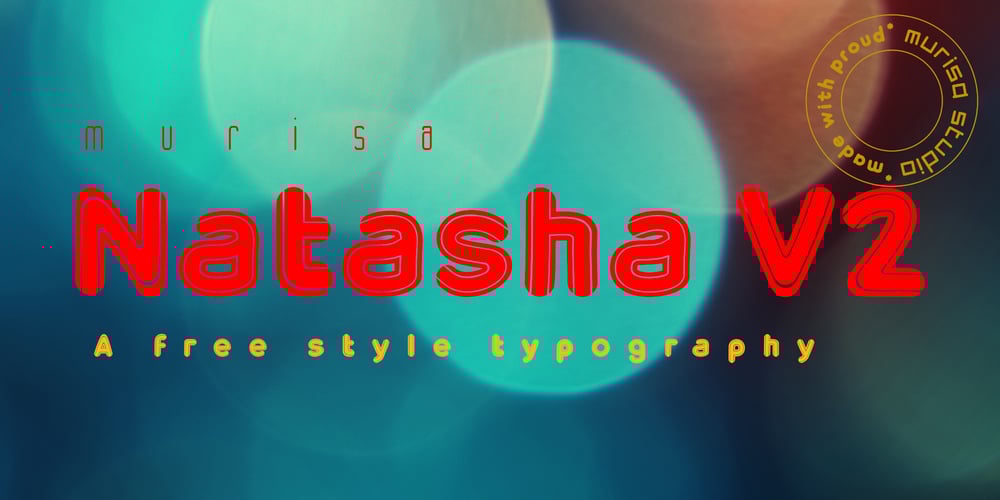
Murisa Natasha Font Family was designed by Lili Sadili and published by Murisa Studio. Murisa Natasha contains 2 styles and family package options. hello, today we want to introduce one of the fonts that we just created. Murisa Natasha font. This is our newest font. We made it with great joy and enthusiasm. This font is very suitable for those of you who are young at heart and full of enthusiasm. This font is very suitable for use in your products. Get it now